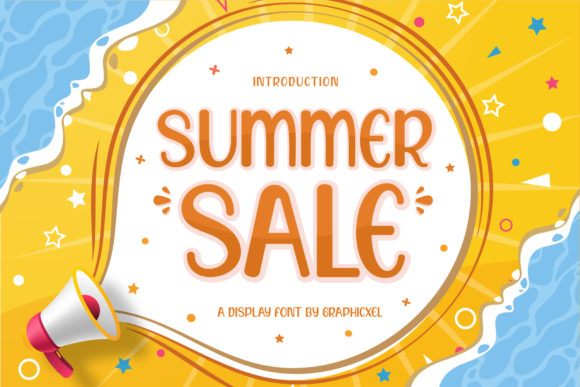
Introducing the Summer Sale Font – a must-have display font for anyone looking to create stunning visuals that demand attention. This sweet and unique font was created by the talented team at Graphicxell, with a focus on delivering a font that would truly stand out from the crowd.
The Summer Sale Font is perfect for those in search of the best fonts for a cover letter, as its friendly feel exudes confidence and approachability. Use it to make your cover letter pop and leave a lasting impression on potential employers.
But the versatility of the Summer Sale Font doesn't stop there. It's perfect for a wide range of contexts, from social media graphics to website design. Its eye-catching curves and playful aesthetic will give your designs a touch of personality that will make them truly memorable.
So why settle for a boring font when you can elevate your designs with the Summer Sale Font? It's the perfect addition to your creative ideas and is sure to make them stand out in all the right ways.